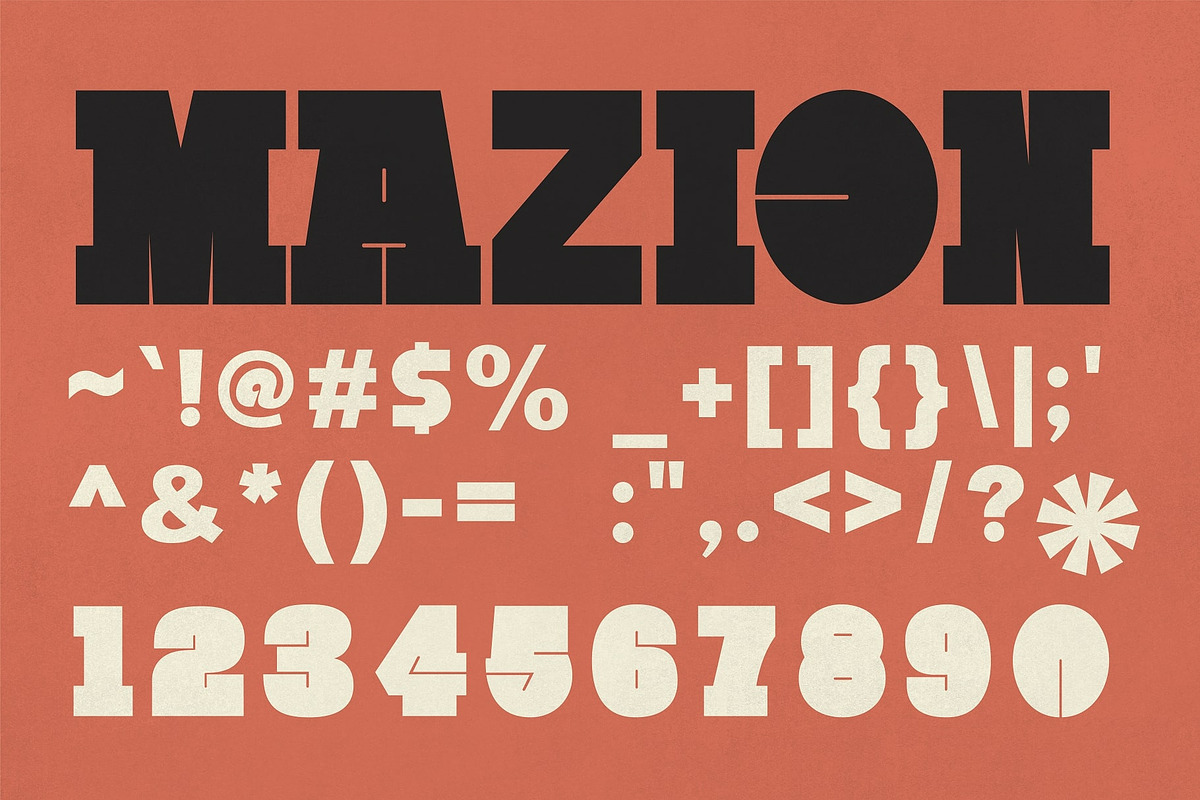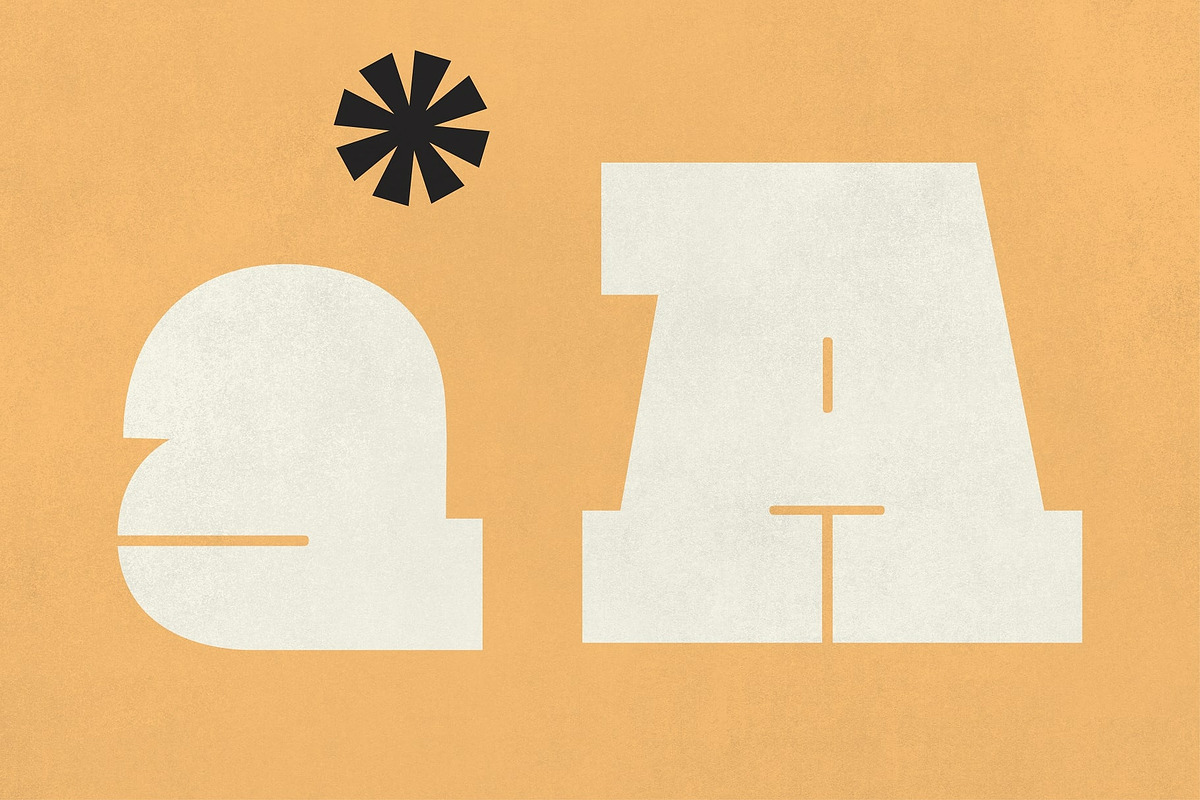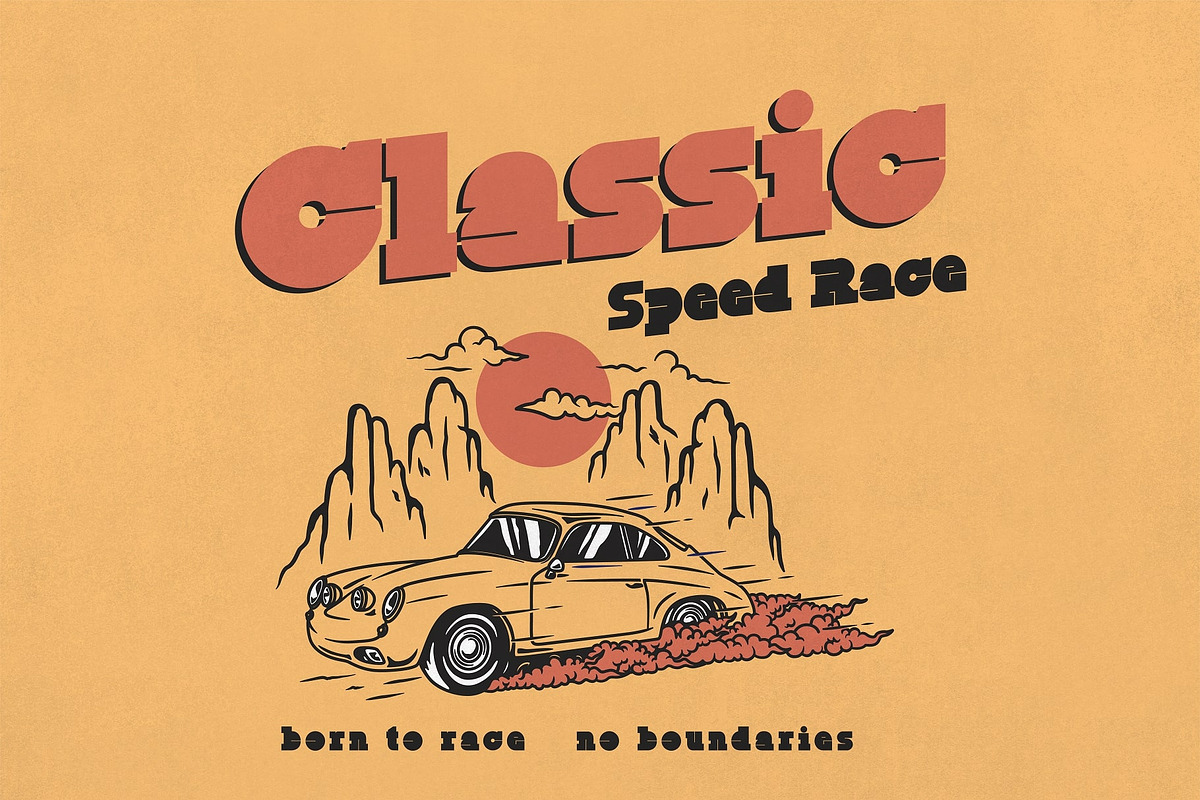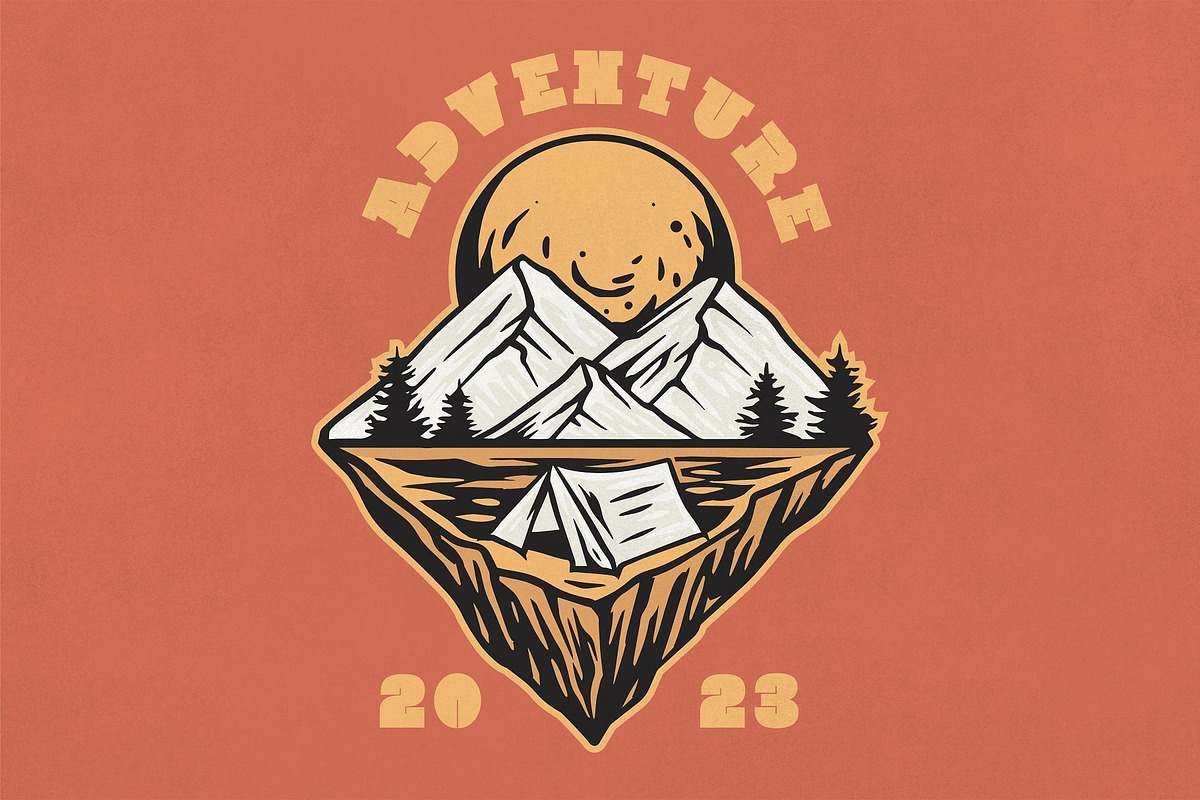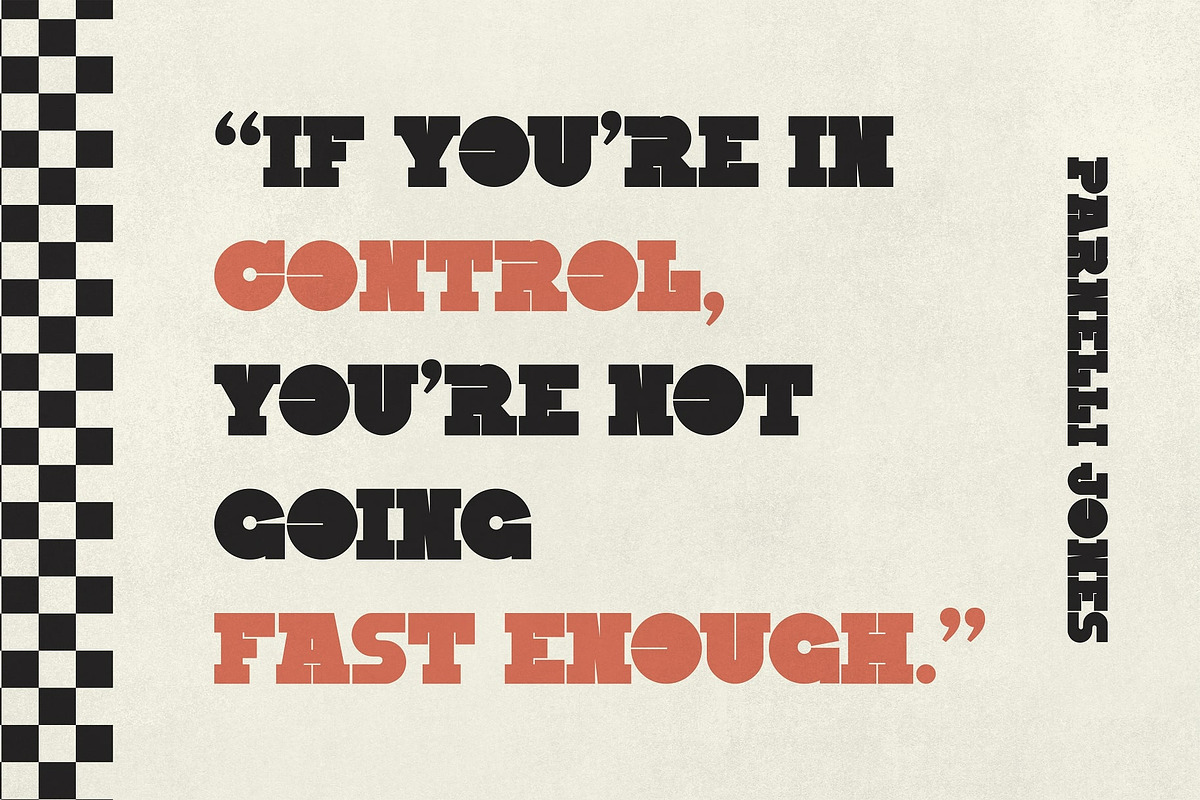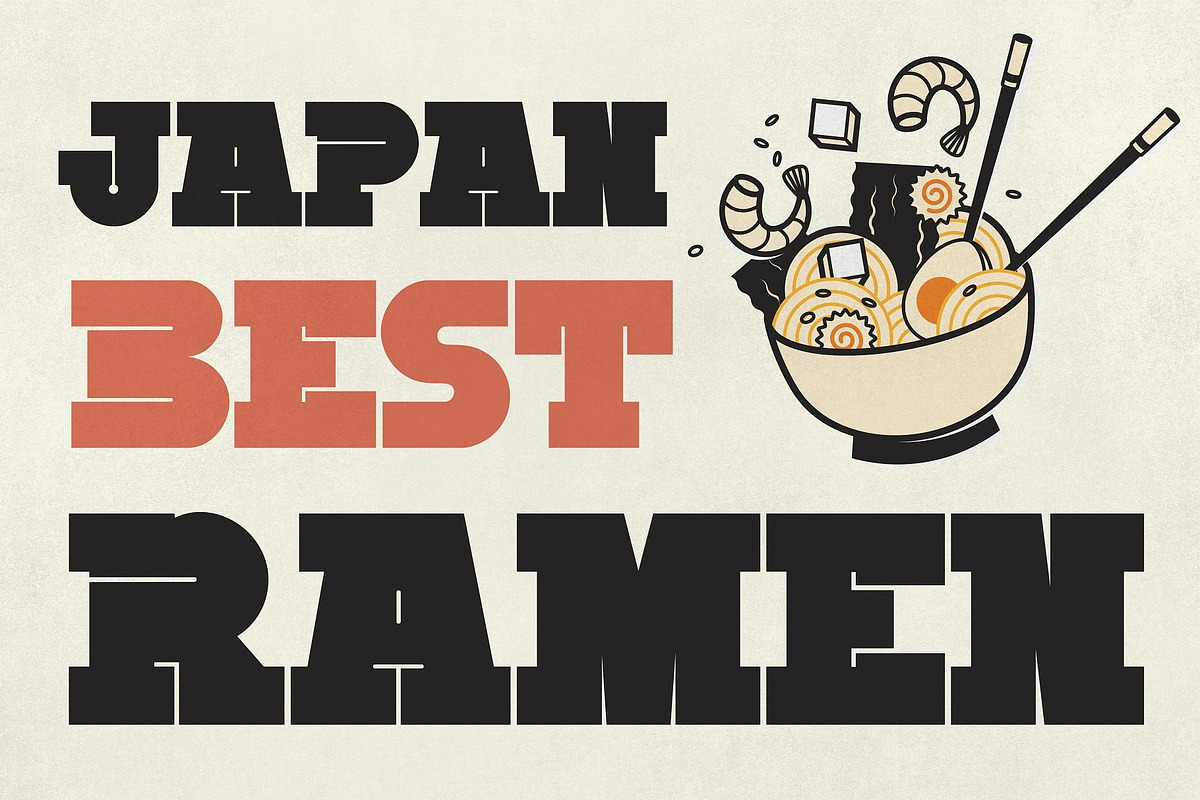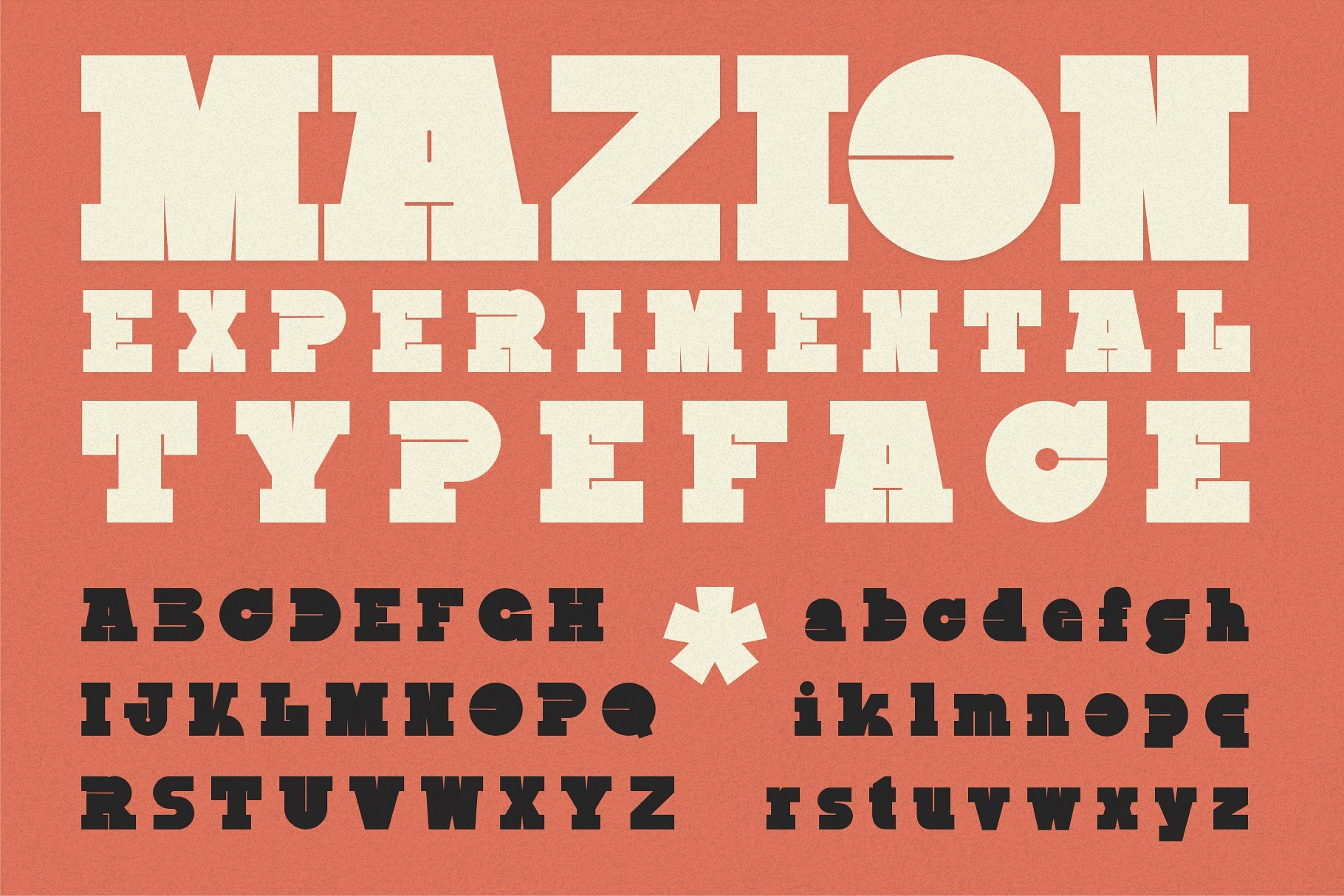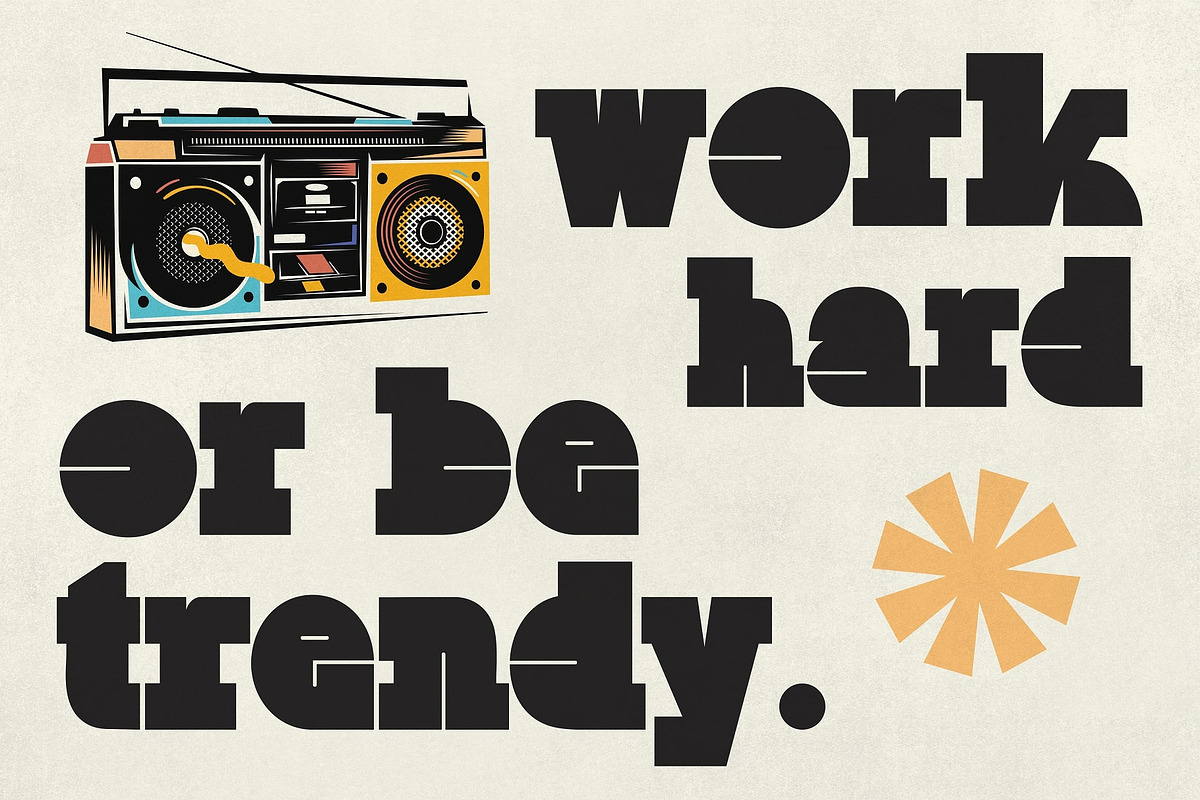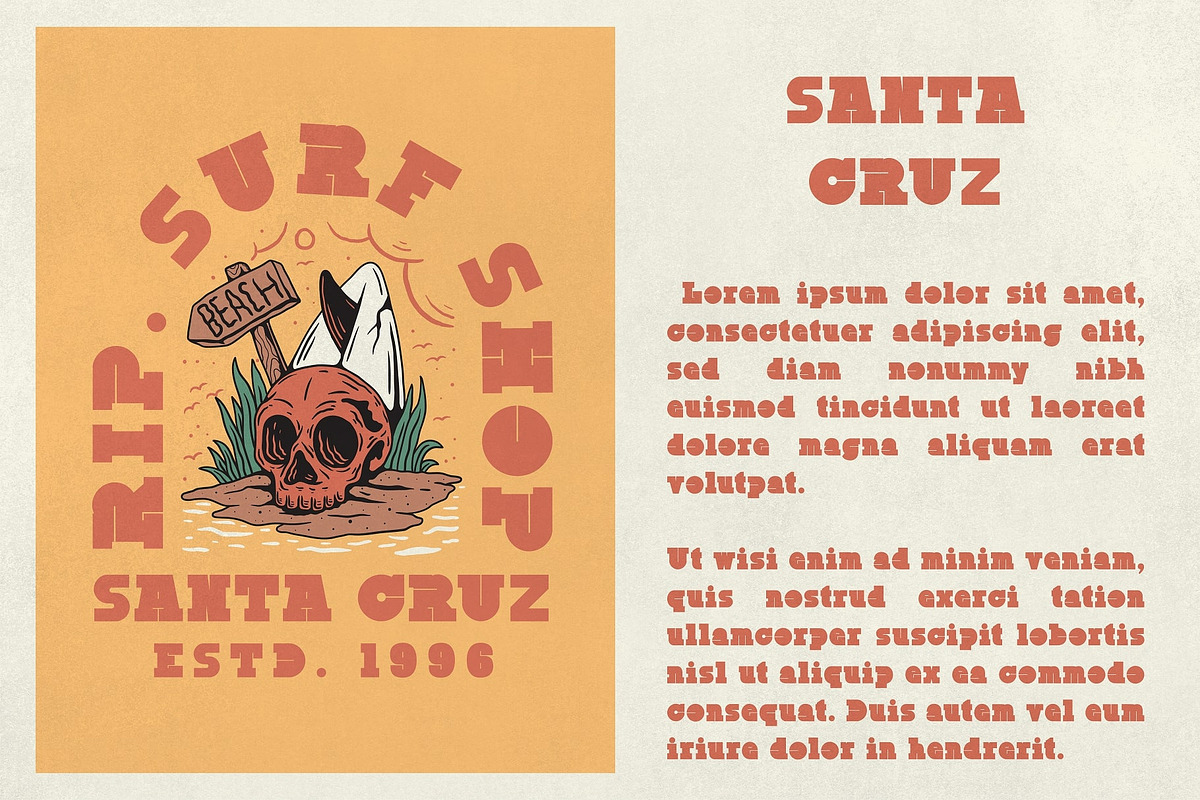
Mazion - Experimental Typeface
Mazion is an experimental typeface that boasts a bold and heavy design. Its geometric form gives it a distinct and attention-grabbing appearance that makes it perfect for headlines, logos, and advertising. Its thick and sturdy lines provide a unique and confident personality that commands attention and leaves a lasting impression.